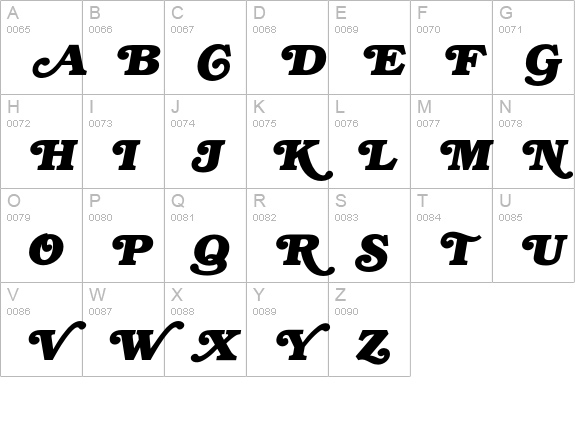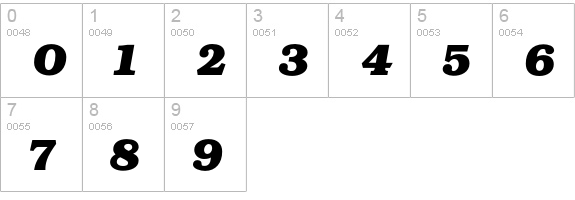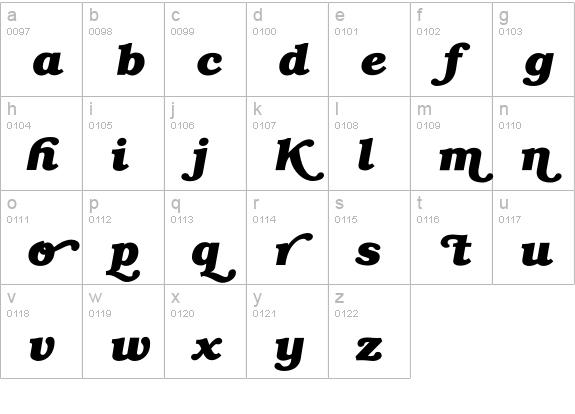
BookmanBoldSwashItalic Font Details
BookmanBoldSwashItalic is a stylish and elegant font that exudes sophistication and charm. With its unique swash details and bold, italic design, this font is perfect for adding a touch of class to any project. Whether you're designing invitations, creating a logo, or working on a branding project, BookmanBoldSwashItalic is sure to make a statement. The best part? This exquisite font is available for free download at FontsMarket.com. Simply head over to the website and get your hands on this stunning typeface to elevate your designs to the next level. Don't miss out on the opportunity to add BookmanBoldSwashItalic to your font collection today!